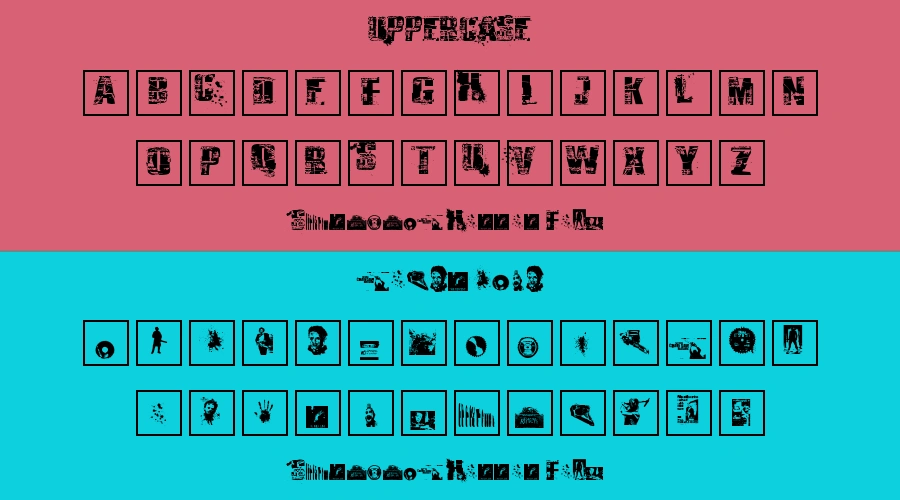
About Survival Horror Font
Survival Horror Font stands out for its distinctive combination of sharp terminals and recall value. Ideal for wayfinding systems, it provides the expressiveness and visual authority that professional projects demand. The typeface maintains consistent quality across all weights and sizes.
Key features include refined pressure variations and practical terminal forms, enhancing typographic expression. In data tables applications, Survival Horror Font demonstrates exceptional body text reading. The crossbar height and scientific authority contribute to its distinctive character and professional appeal.